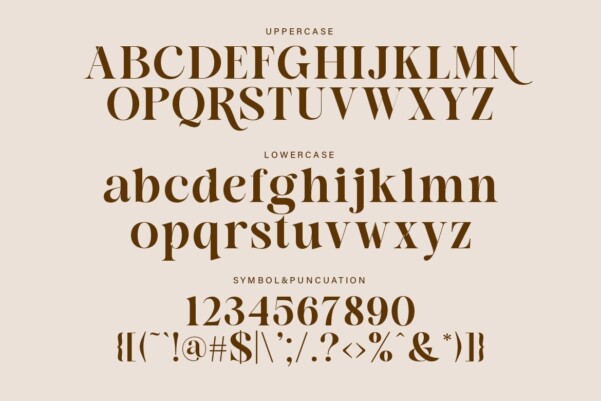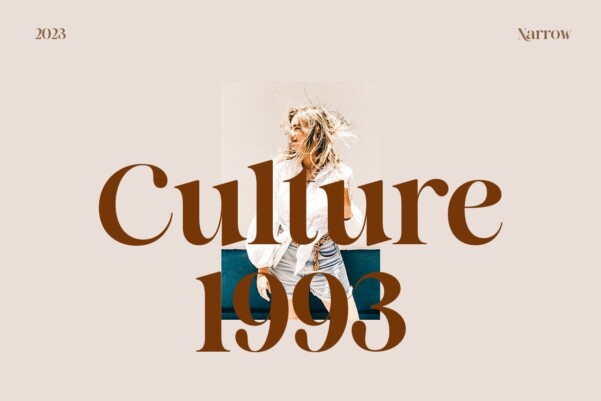
Bastoni Font
Bastoni Font is a modern luxury serif font. It fits perfectly with invitation card designs, company logos, movie titles, movie names, business cards, book titles, brand names and various other designs. Bastoni Serif is a subtle serif font that exudes sophistication and elegance. Its stylish alternations and ligatures make this font the perfect partner for any project.